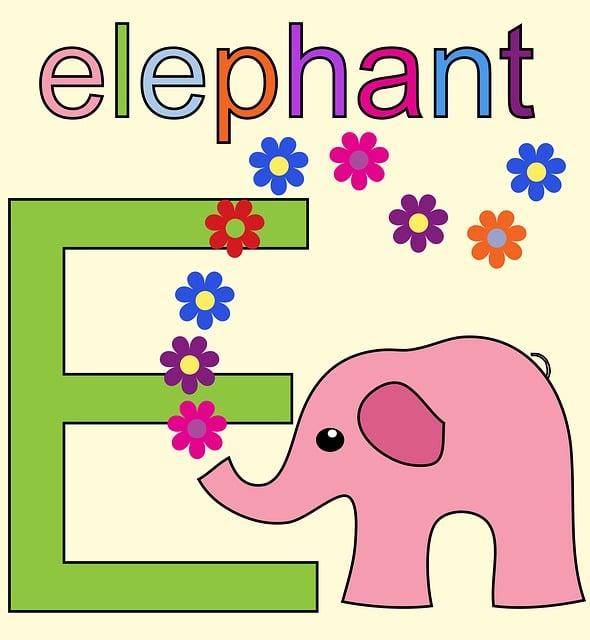
Cutest Fonts on Canva: The Ultimate Collection for Whimsical Designs
Are you tired of using the same old boring fonts for your design projects? Well, look no further! In this ultimate collection, we’ve rounded up the cutest fonts ⁤on Canva that will bring a touch of whimsy to‍ your creations. From playful script fonts⁢ to charming hand-lettered styles, these fonts are sure to add a delightful flair to your designs. So, get ready to infuse your projects with personality and charm as we dive into the world of the cutest fonts on Canva!
Top⁣ Picks for Adorable Font Styles
Top Picks for Adorable Font Styles
Finding the perfect font style ‌can add a charming touch to any design⁣ project. Here ‌are our that are sure to make your text stand‍ out:
• Bubblegum Font: This playful and ‌whimsical font style is perfect for projects aimed at a younger audience. Its⁣ round ⁤edges and bright colors ‍give off a ‍fun and‍ friendly vibe.
• Handwritten Script: Adding a touch of personalization to your design,‍ handwritten script fonts ‍are a‌ popular choice ‌for invitations, cards, and social media graphics. ‍They bring a warm ⁢and inviting feel to any text.
Whether you’re looking to add a touch of cuteness or elegance to ⁢your‍ design, these font styles are great options to consider. Remember to pair them with complementary colors ​and graphics for a polished and cohesive look. Experiment with different combinations‌ to find the perfect match for⁣ your project.
How to Choose the Perfect Whimsical Font for Your Design
When it comes to choosing the perfect whimsical font for your design, consider the overall vibe and⁢ message you want to convey. Whimsical fonts can add a playful and light-hearted touch ⁢to your⁢ design, so think about the mood you want to create. Whether you’re aiming for a fun and quirky ⁤vibe or a dreamy⁤ and magical feel, there’s a whimsical font out there that can help you achieve your desired aesthetic.
Another important factor to consider when choosing a whimsical font is readability. While whimsical fonts are known for their unique and creative designs, it’s crucial to ensure that ⁢the font is still easy to read. Look for fonts ⁣that strike a ⁤balance between creativity and readability, and test out different options to see which one works best for your design.⁤ Play⁤ around with‍ different sizes, spacing, ⁤and colors to make sure that your whimsical font pops and grabs the viewer’s⁤ attention.
Exploring the Best Options for Cute Typography on Canva
When it comes to creating cute typography on Canva, there are a plethora of options‌ to choose from that can make your designs stand out. ⁣Whether ⁢you’re working on a social media post, a blog graphic, or a flyer, selecting the right typography ⁣can elevate ‍your design and catch the eye of ‌your ‌audience. Here are some of the best options for cute typography ⁣on Canva:
1. **Handwritten Fonts:** Handwritten fonts can add a personal touch to​ your design and give it a whimsical⁣ feel. Canva offers a⁤ wide range of cute handwritten fonts that are perfect for adding‌ a playful element to your project.
2. **Bubble Letters:** Bubble letters are round and ⁣bouncy, making them a fun and eye-catching choice for cute typography. These types of fonts are great for making headlines pop and‌ adding a youthful vibe to your design.
3. **Pastel Colors:** When it comes to cute typography, pastel colors are a popular choice.‌ Soft, muted hues can give your text a gentle and inviting look, perfect for creating a charming design.
Tips for Pairing Cute Fonts with Graphics in Canva Designs
When it comes to creating eye-catching designs in Canva, pairing cute fonts ‌with graphics can make all⁤ the difference. By choosing the right combination, you⁣ can enhance the‍ overall aesthetic of your design and make it more appealing to your audience. To help ‍you achieve this, here are some tips to consider:
Choose⁢ Fonts that Complement Your Graphics
Using fonts that match the style and theme of your graphics can help⁤ create a cohesive look. Make sure the fonts you select enhance the overall design and don’t clash with the images or illustrations. Experiment with different font pairings to find the right‍ balance between cute and cohesive.
Consider Font Hierarchy
Incorporating font hierarchy can help guide the viewer’s eye and emphasize⁣ important‍ information⁢ in your design. Use a mix of font sizes, styles, and weights to create visual interest ⁣and highlight⁤ key elements. ⁣Remember to keep the hierarchy consistent throughout your design to maintain a ‌polished look. By following‍ these tips and experimenting with different combinations, you can easily pair cute fonts with graphics in your Canva designs ​to create visually appealing and ‍engaging content.
Closing Remarks
Give⁤ your designs a touch‍ of whimsy ​with Canva’s ⁤cutest fonts! From adorable to elegant, this ultimate collection has something⁣ for every project.